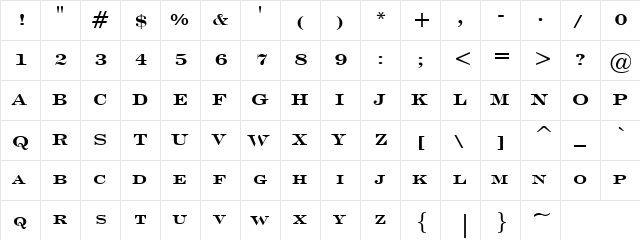
Lazy Laal Regular
Design Context for Lazy Laal Typeface
Lazy Laal takes a measured approach to typography — its balanced proportions and neutral character make it a reliable workhorse for both digital and print work.